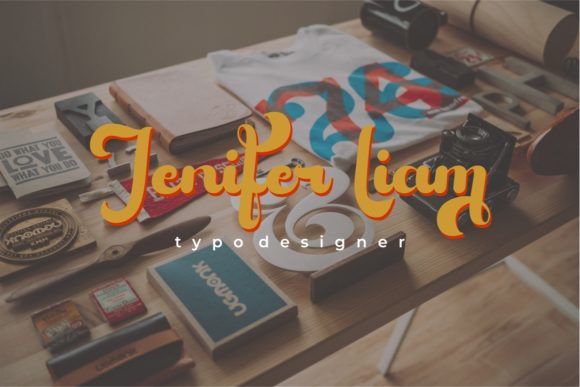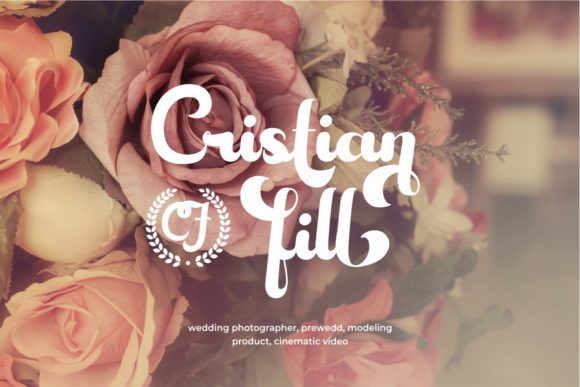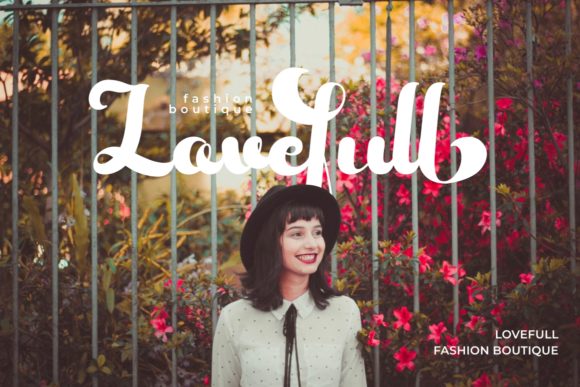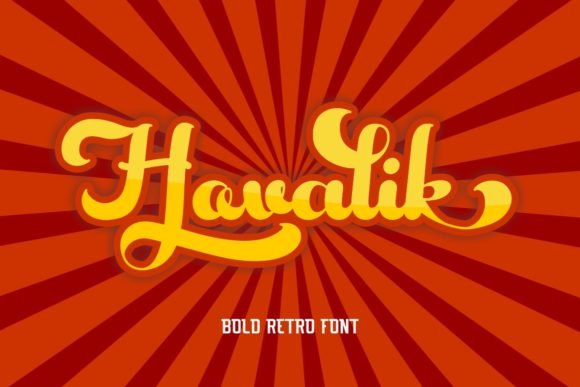
Introduction to Hovalik Font
Hovalik feels playfully nostalgic and delivers an incredible vintage aesthetic.
Use this handwritten font to add that special retro touch to any design idea you can think of .
Key Features of Hovalik Font